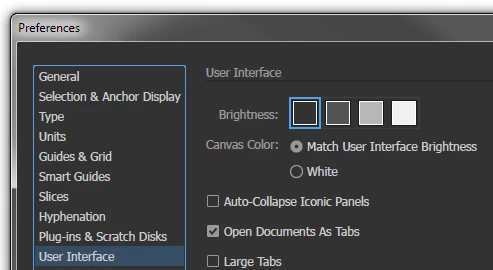
New UI font too bright too white, i dont know why they change it but it bothers my eyes
Please revert it, who with me?
Have you tried changing it in Preferences > User Interface?
I am not talking about that theme color i am using the second from the left and i always use it.
but now the font in this theme is to bright, try to compere it to Animate CC and see that the font is softer and less brighter
take a look left is how it used to be right is now